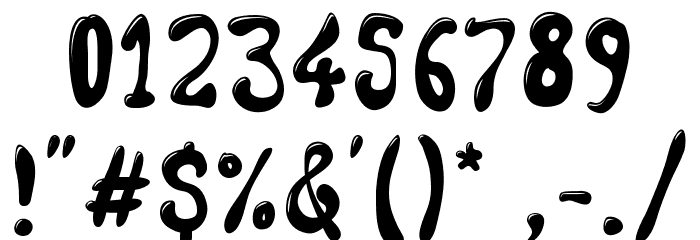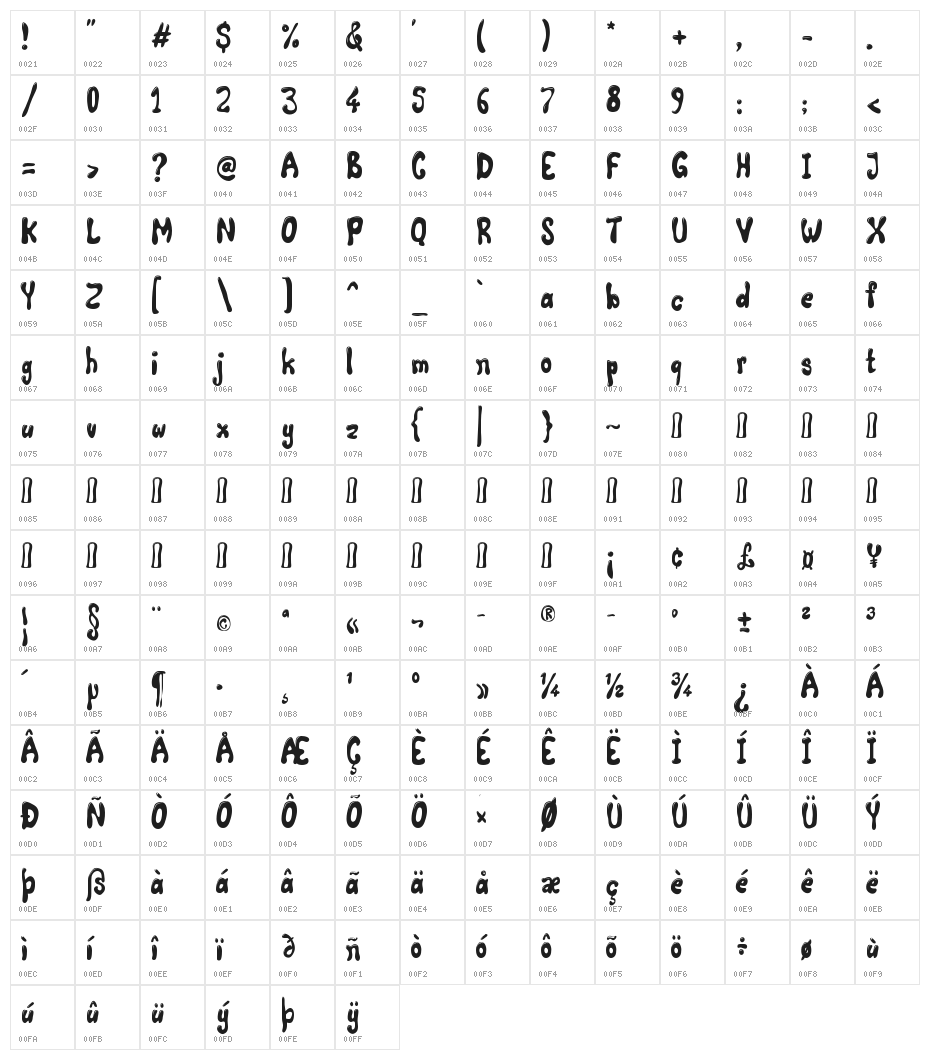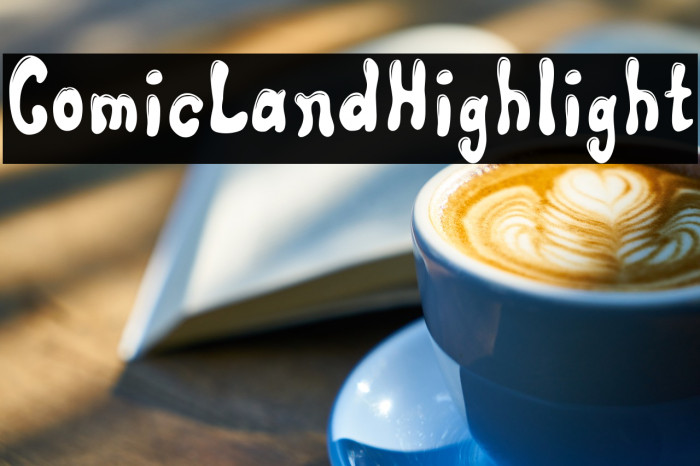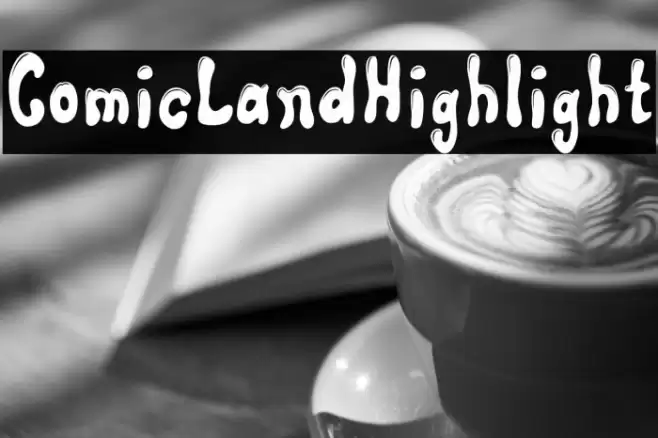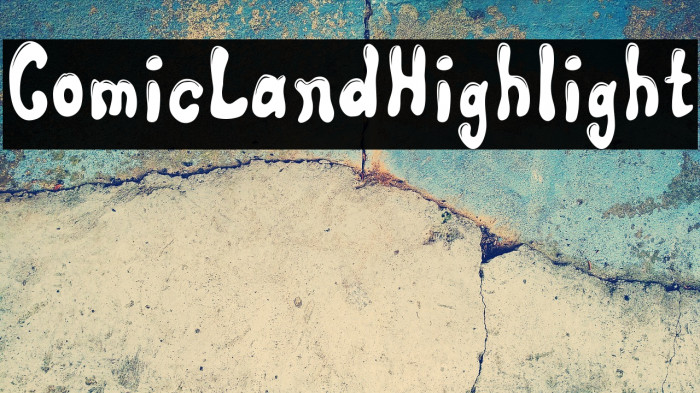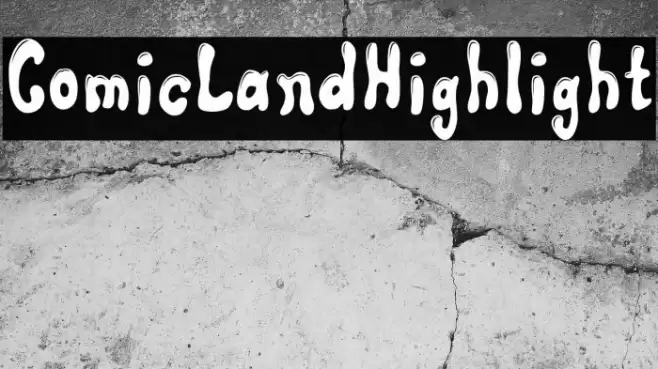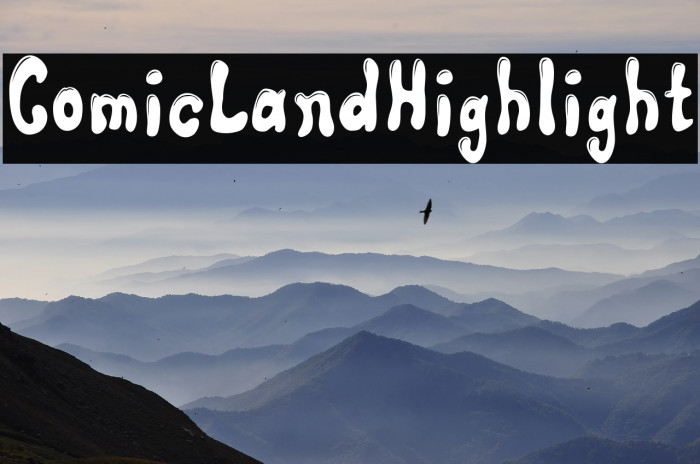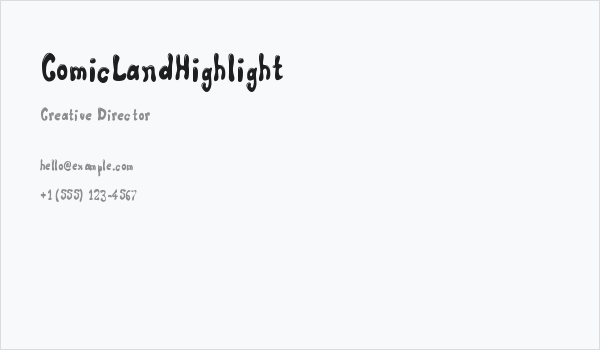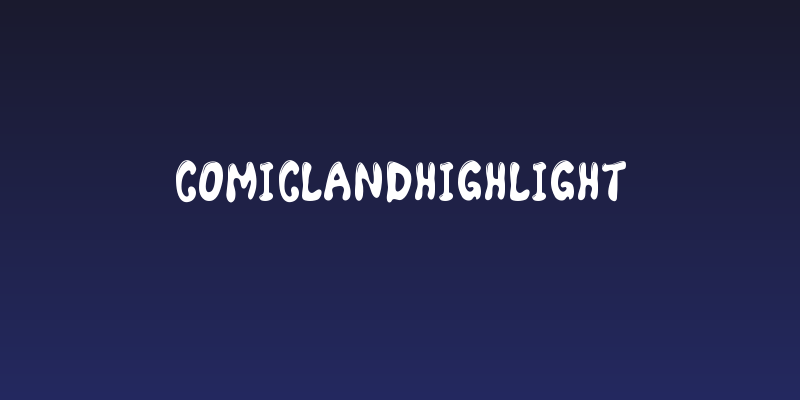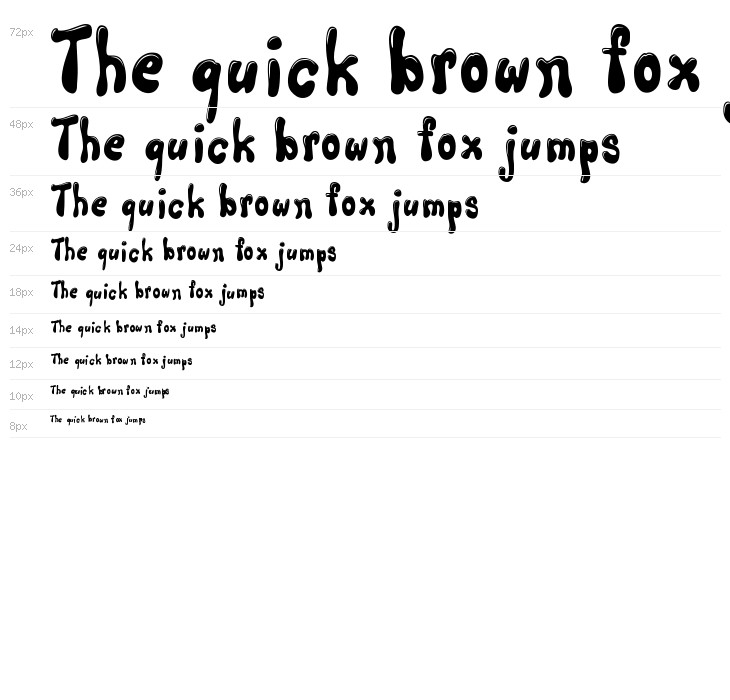
ComicLandHighlight Font
ComicLandHighlight Description
This playful and bold font features a bubbly, cartoonish style that exudes a sense of fun and whimsy. The characters are rounded and slightly irregular, giving them a hand-drawn appearance. The uppercase and lowercase letters maintain a consistent style, with a slight tilt that adds to the dynamic feel. The numbers and special characters are equally playful, making the font suitable for creative and informal projects. The thick strokes and rounded edges contribute to its friendly and approachable aesthetic, making it ideal for children's content, comics, or any project that requires a lighthearted touch.
| Overall Style | Playful, Cartoonish |
| Proposed Projects | Ideal for children's books, comic strips, playful branding, and party invitations. |